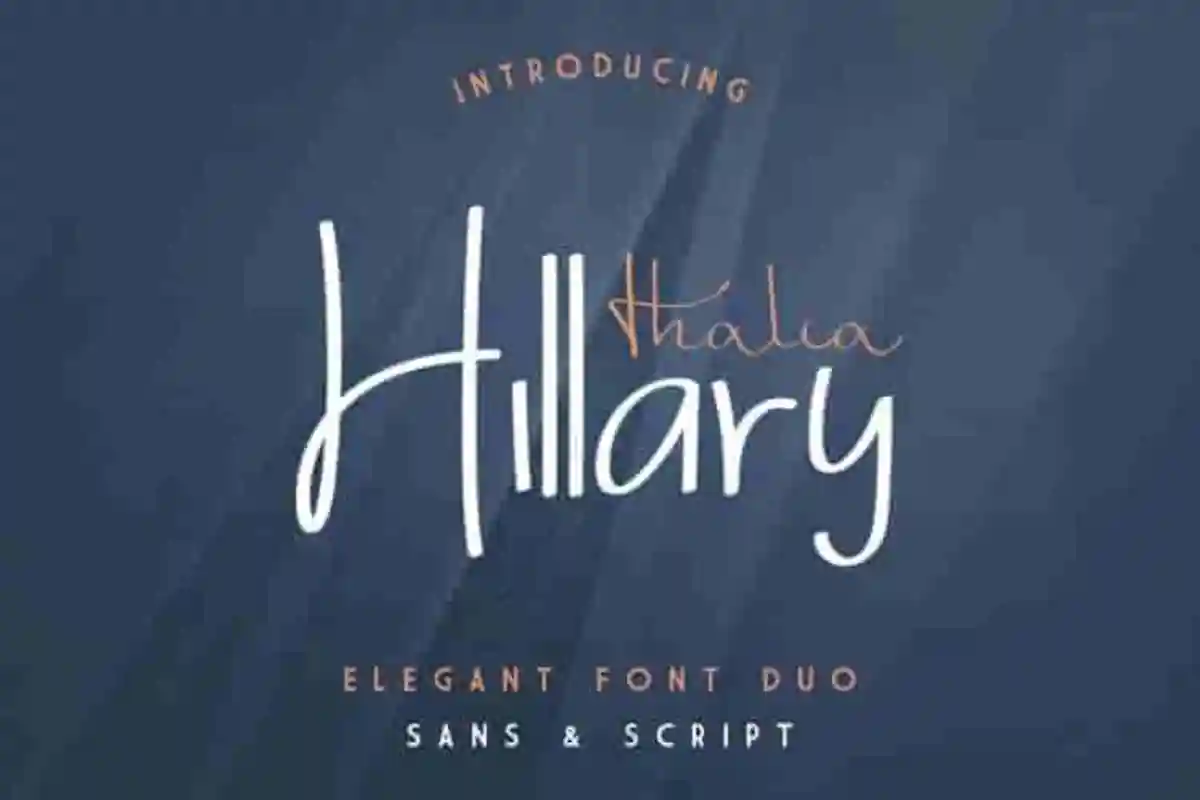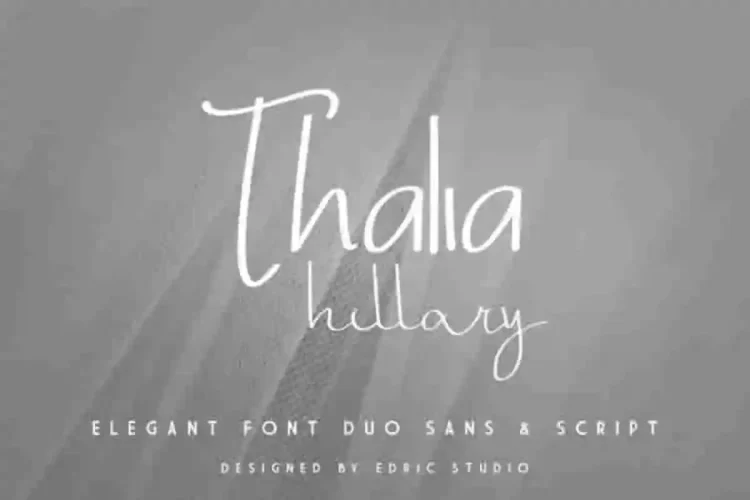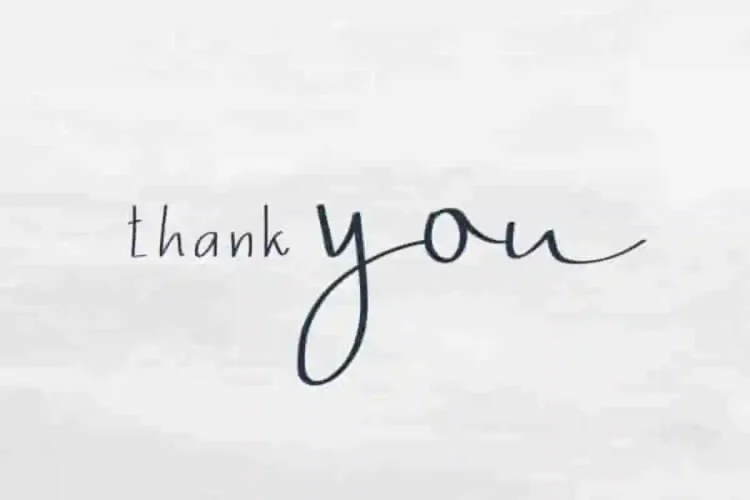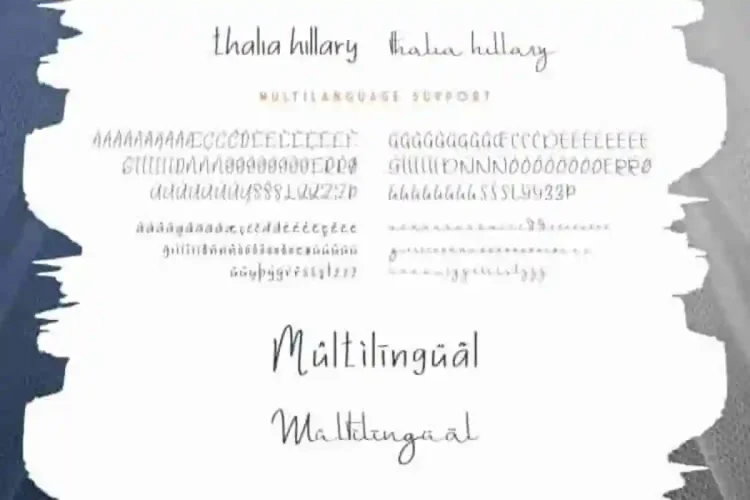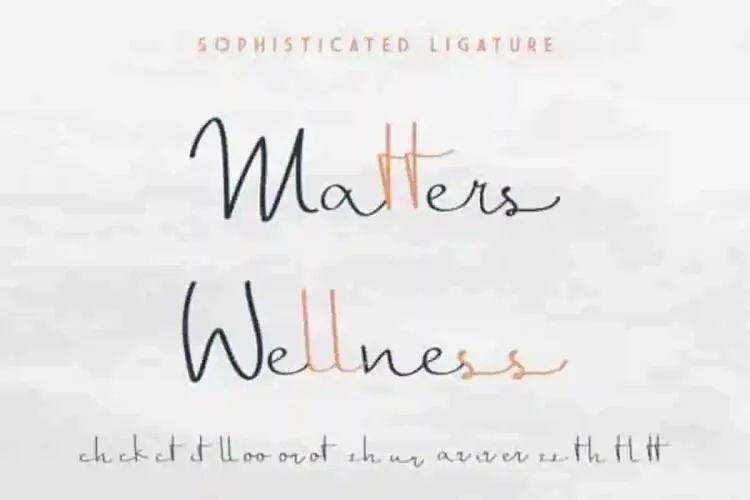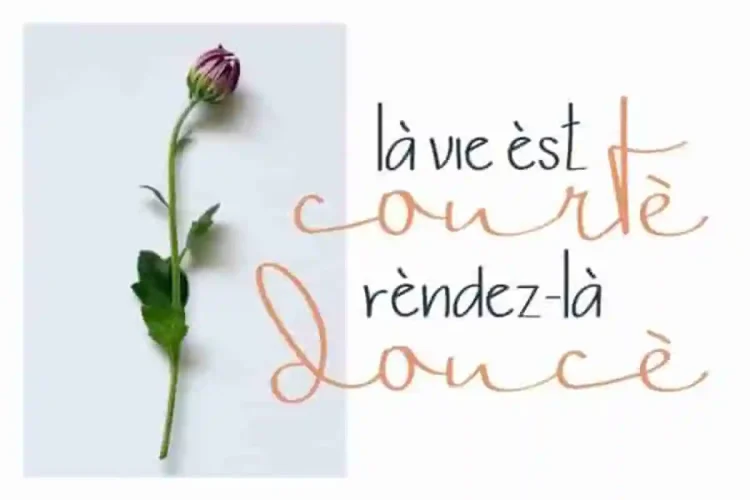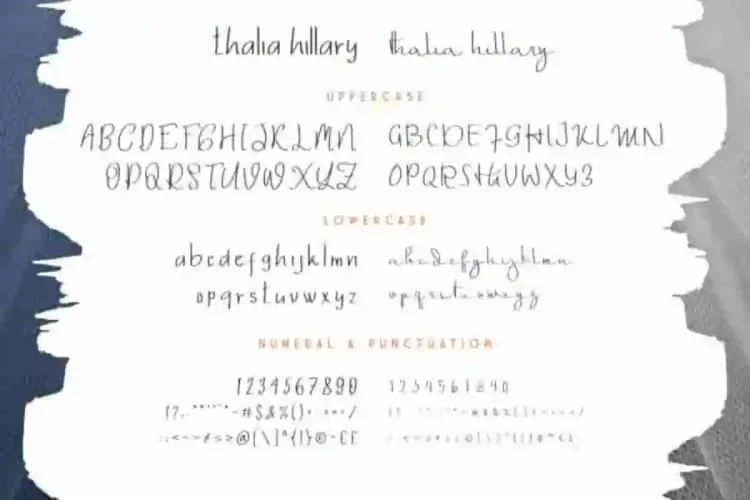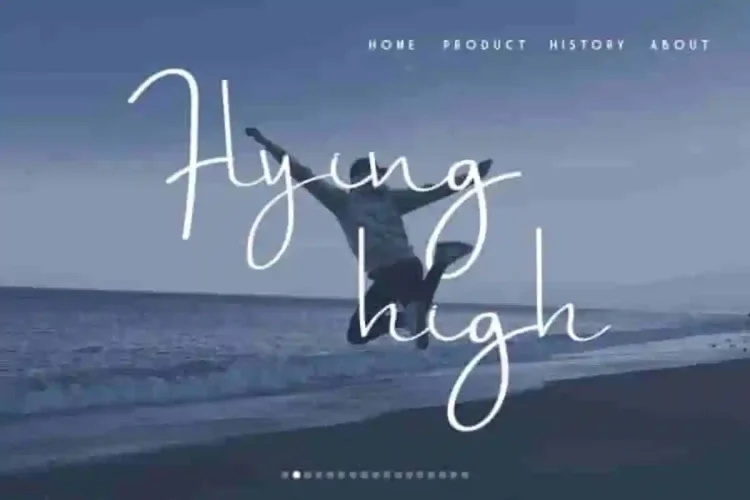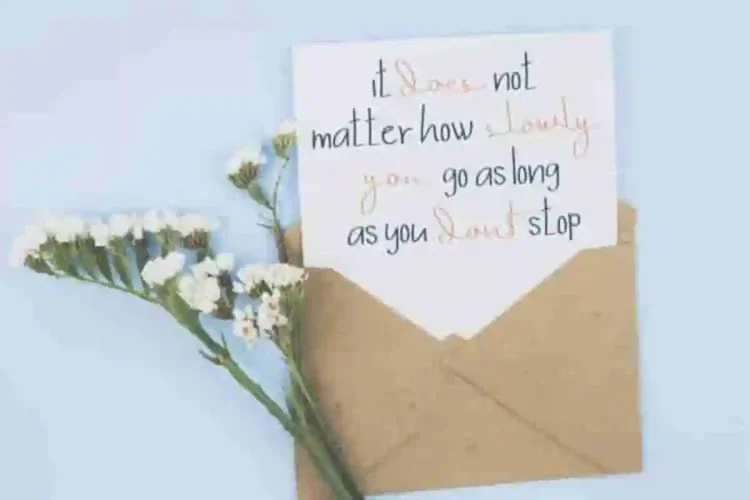
Thalia Hillary Script Font Duo
For every Creative folks, Today we are going to present one of our newest font : Thalia Hillary Script Font Duo . This new font is a Font Duo family. This font was made perfectly in our studio in Bandung-Indonesia. It was made by our Typeface designer : Saila.
This font duo has two different style font : Sans Decorative Font and Calligraphy Script. With these two styles you can explore many industries and designs categories. With an extendend licenses you can create anything you want : Branding (logo, stationery, bizcard, head letter, folder etc), promotions stuff (flyer, brochure, postcard etc), Digital marketing (Banner, Ads, cover etc), Personal Invitation, Magazine, Website etc.
Thalia Hillary Font Duo has a unique and exclusive glyphs that will be great for many projects categories : Logo type, flyer, stationery, business card, signage, flyer, brochure etc.  With your creativity, there’s no limit using with this typeface.